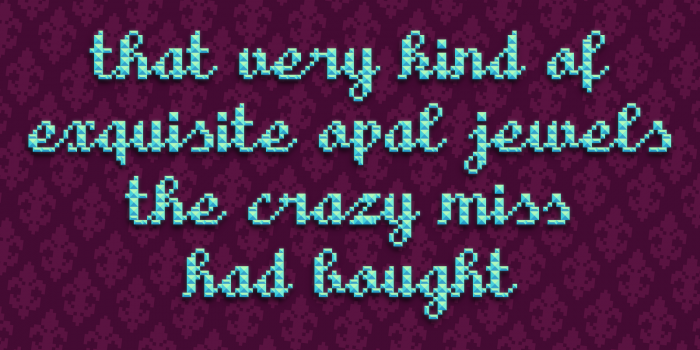
Excellent color version! My only "but" is that the font is a little harder to read on white or light backgrounds. Good luck!
I like the combination of bigger and smaller squares and rectangles in this.
It is a difficult task to adapt a handwriting pixel font for such colour rendering. Your selection of colours is excellent; I can see the 3D of the small pyramids. A layer of fine shadow would have made it even better. 10/10